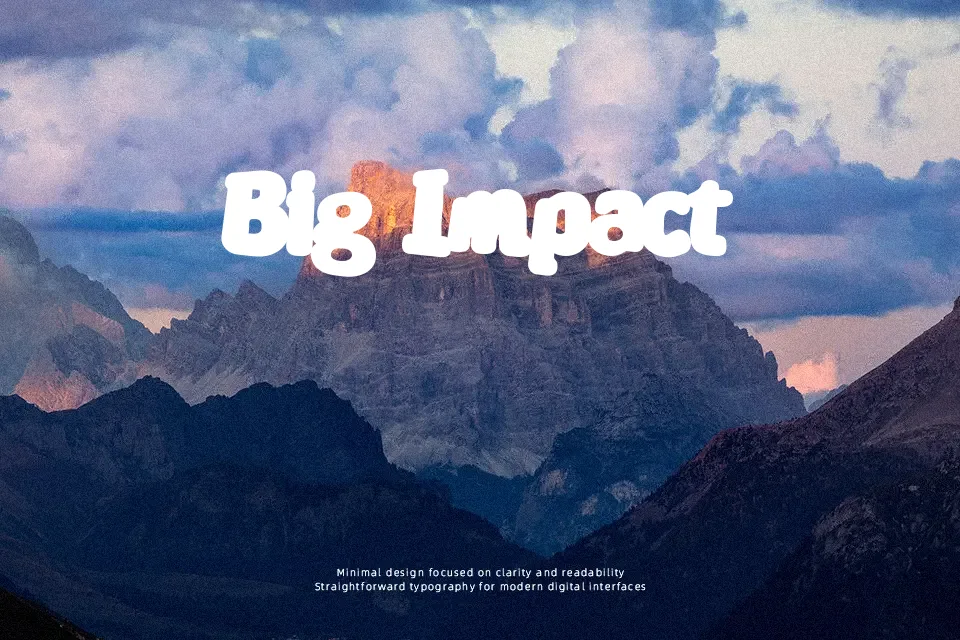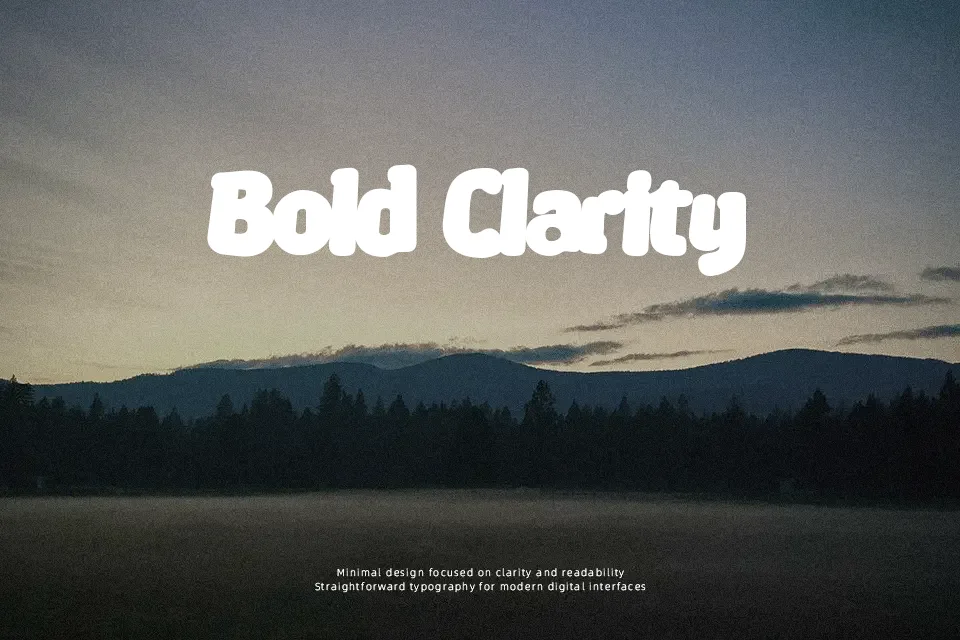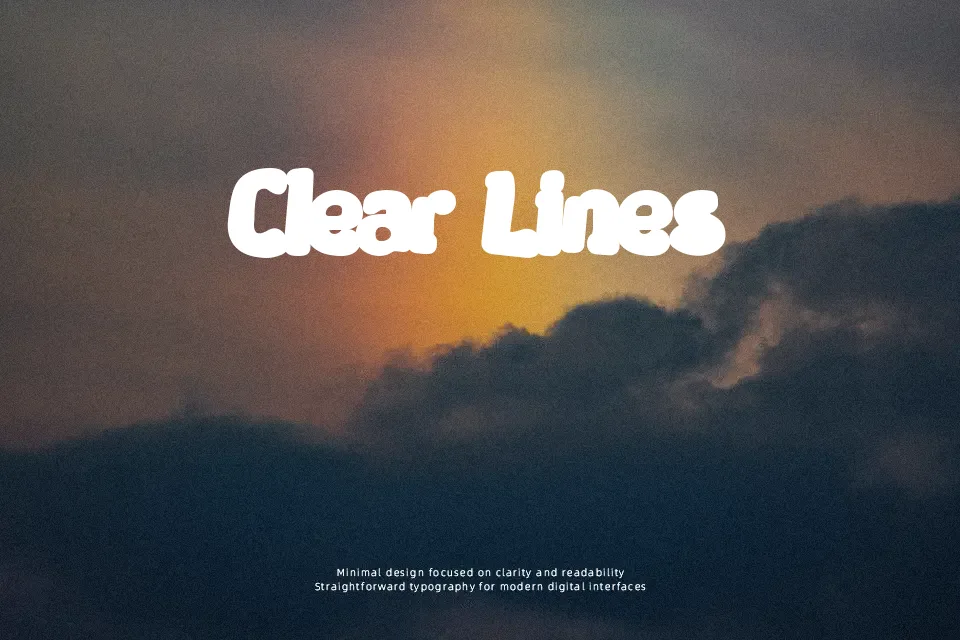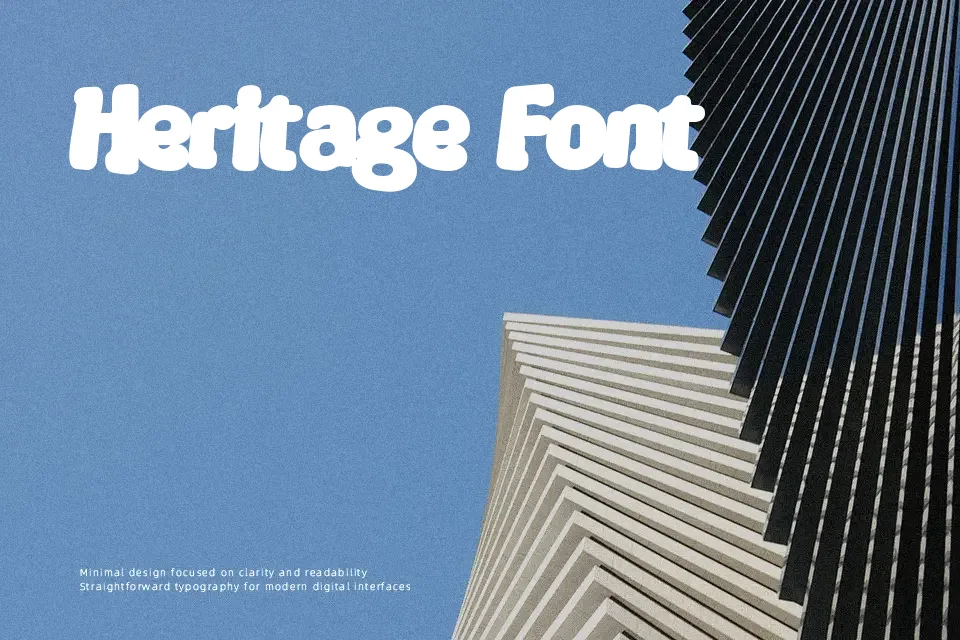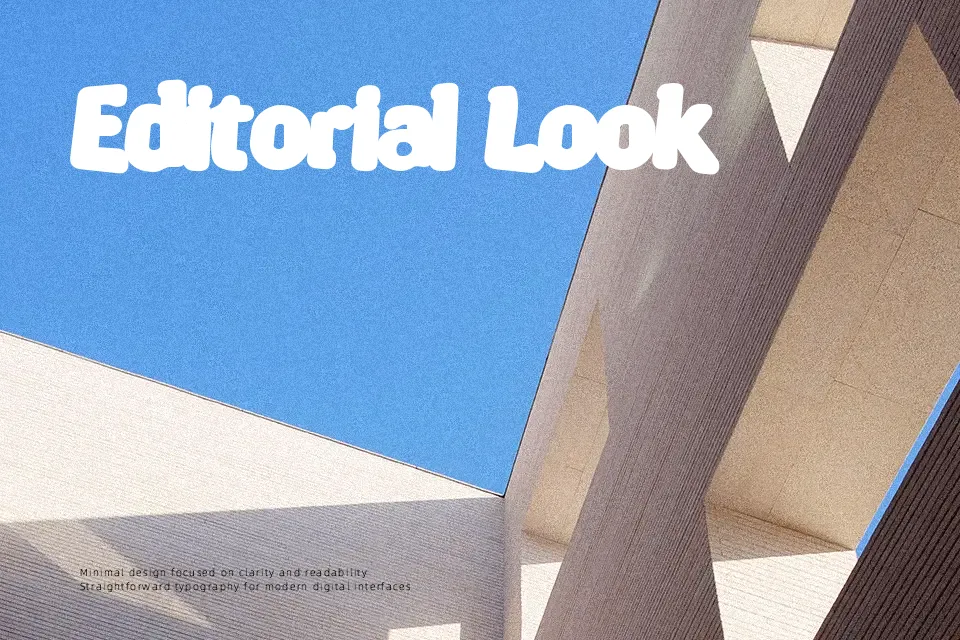
Severina Font
Severina Font introduces an energetic display style characterized by plump silhouettes, softened terminals, and asymmetric character geometry. The heavy stroke distribution creates substantial visual weight, while the compact spacing keeps words tightly unified in short headline arrangements. Generous counters and distinct inner curves help individual glyphs remain decipherable across vibrant compositions, though the dense shapes become difficult to distinguish at small sizes. The design shines across arcade titles, festival graphics, and juvenile merchandise where expressive charm takes priority. However, the irregular proportions and thick outlines reduce continuous reading comfort, making the typeface unsuitable for body copy or dense editorial layouts.
– children’s toy packaging
– animated video game titles
– theme park signage
– casual party invitations
– long body paragraphs
– corporate financial reports
– mobile interface text
– dense editorial articles